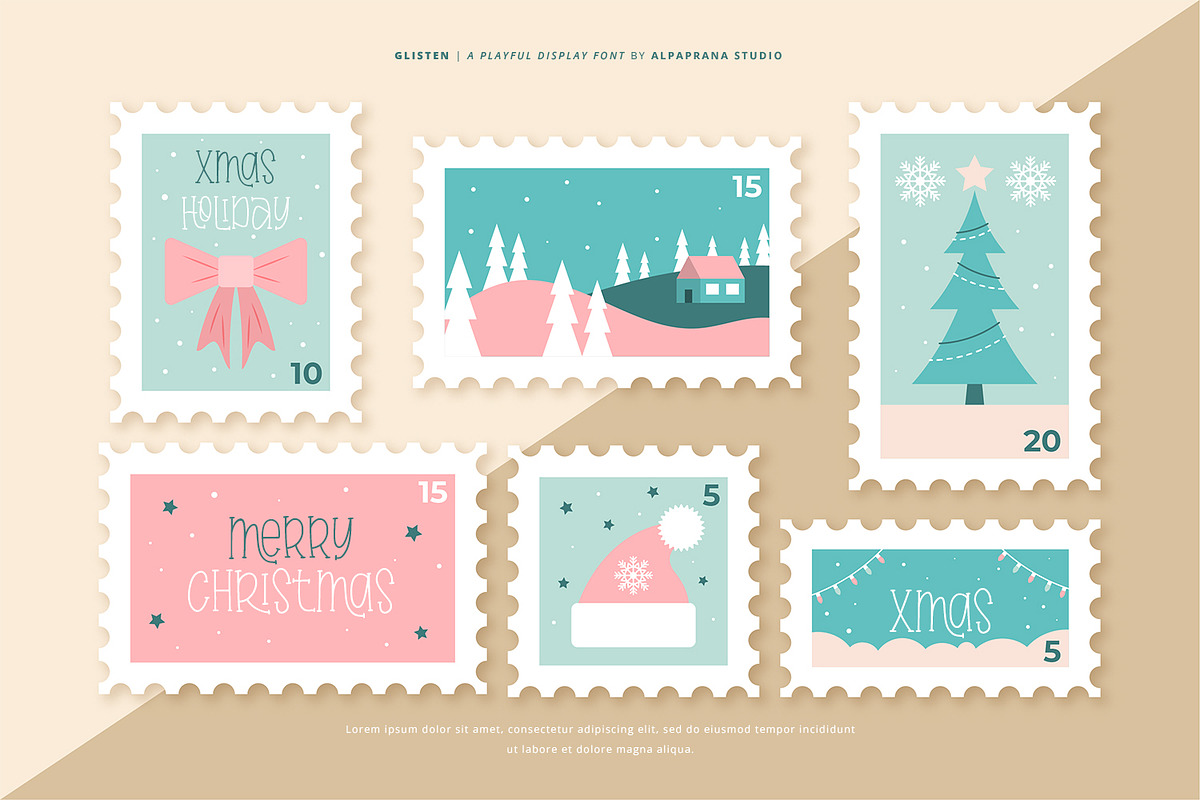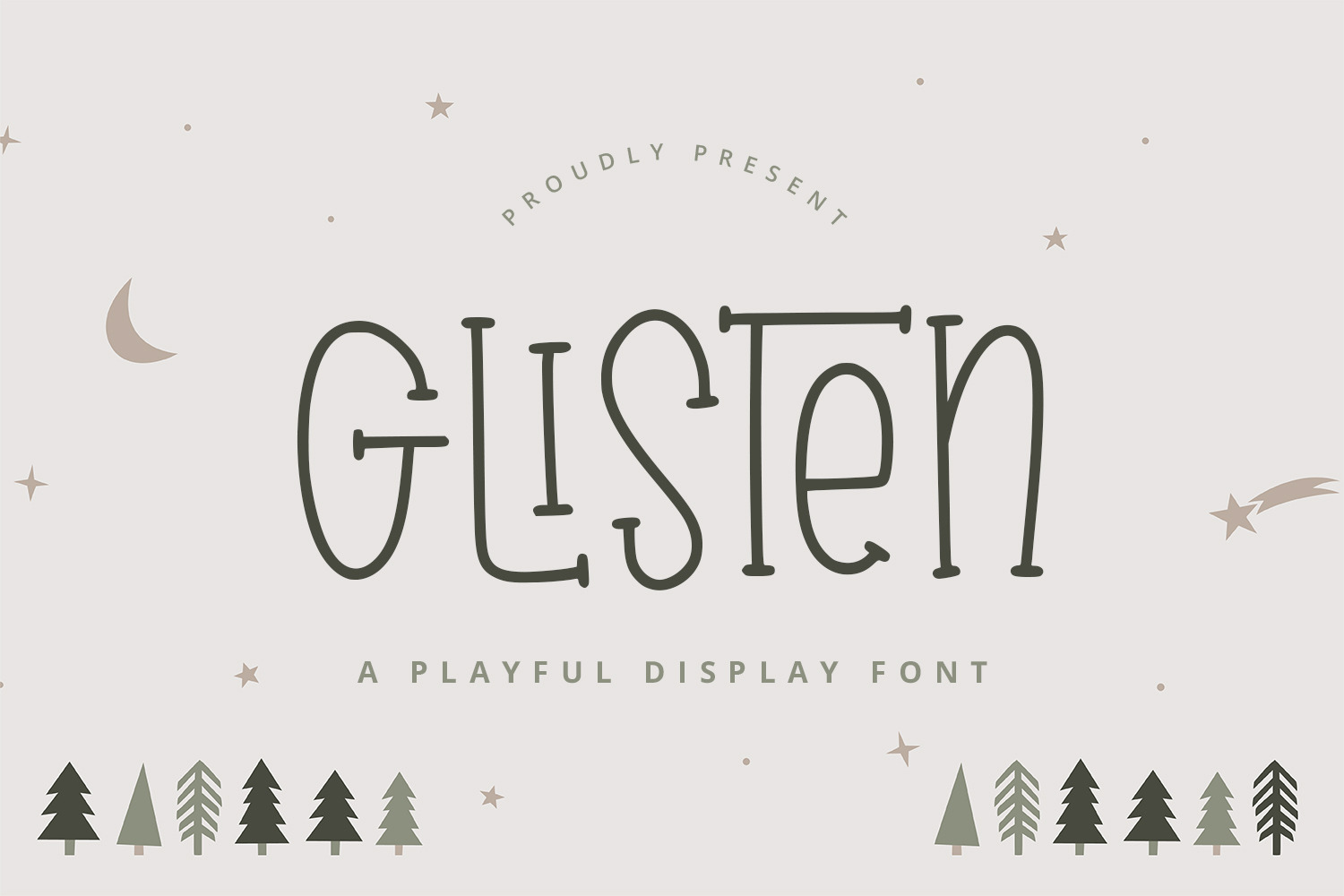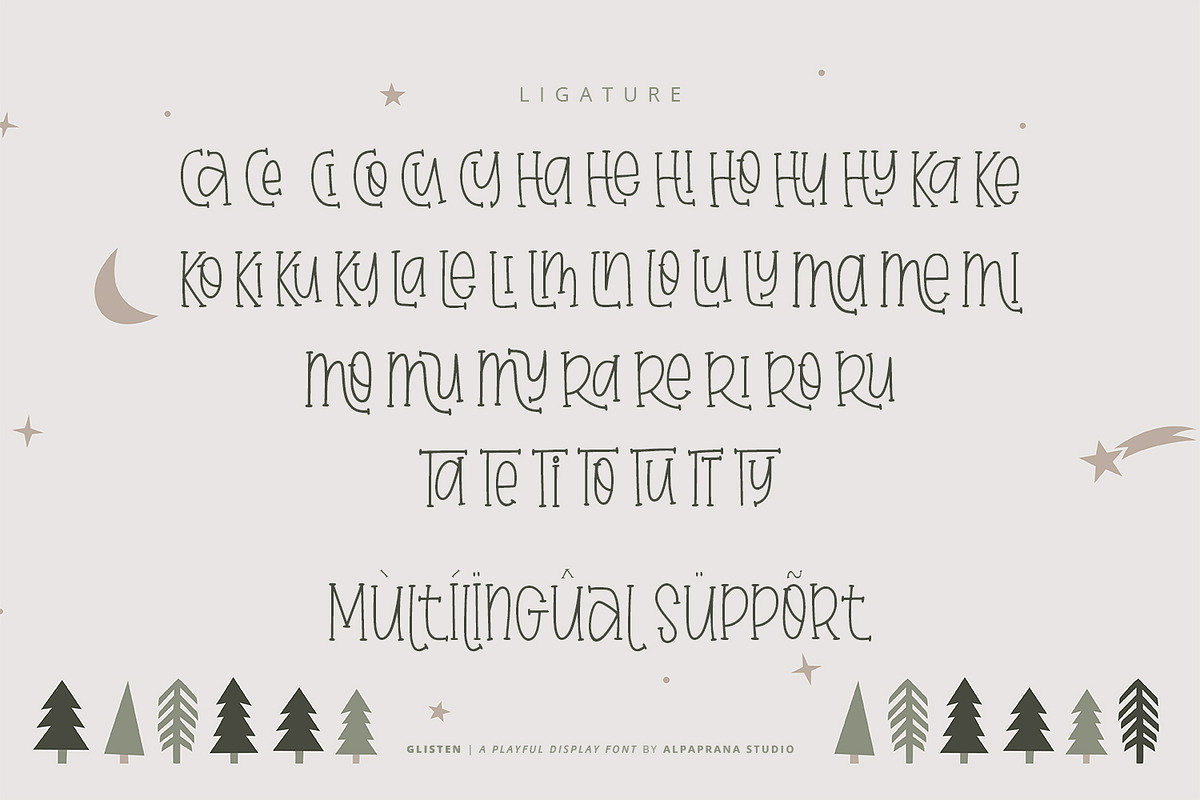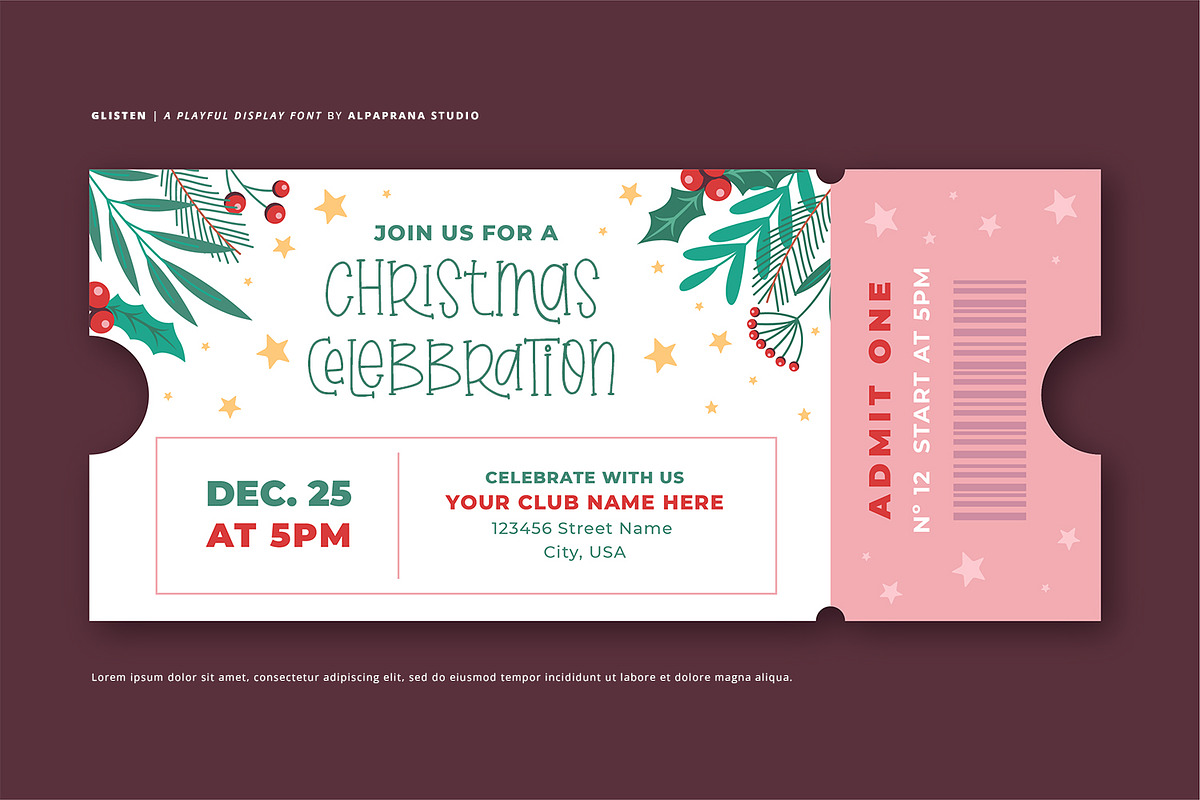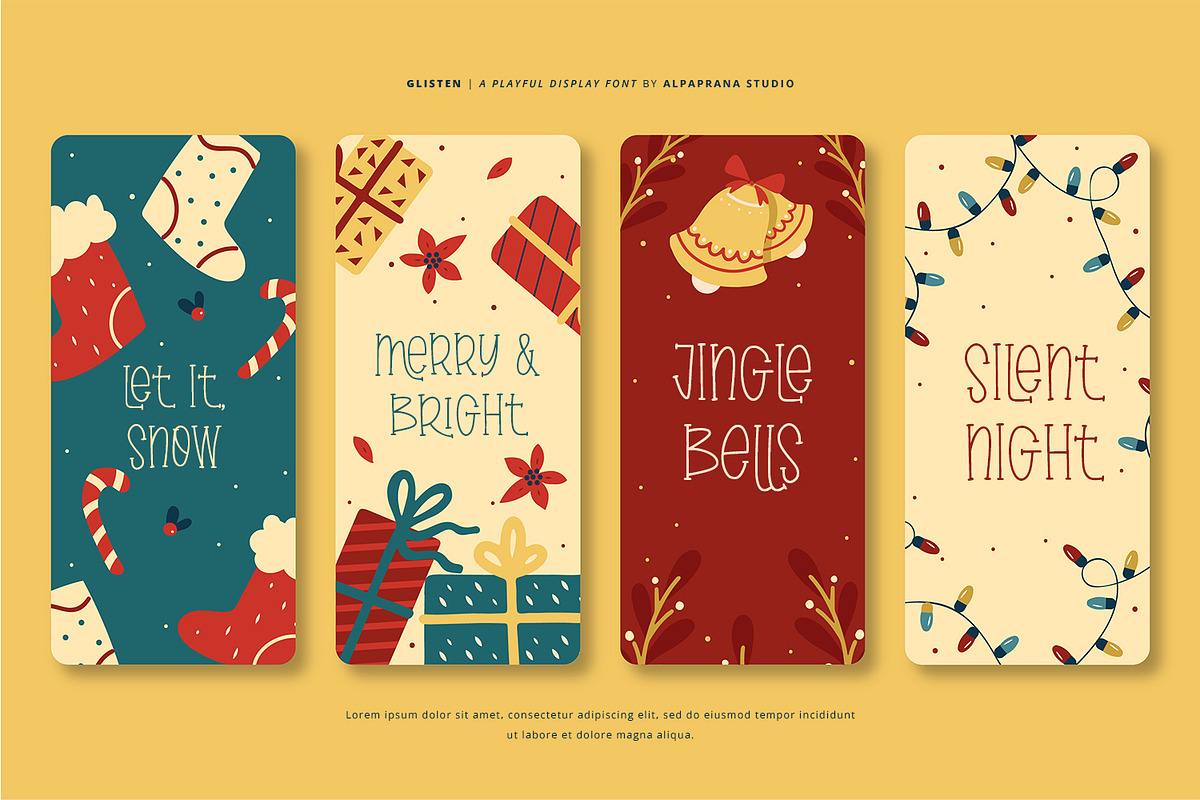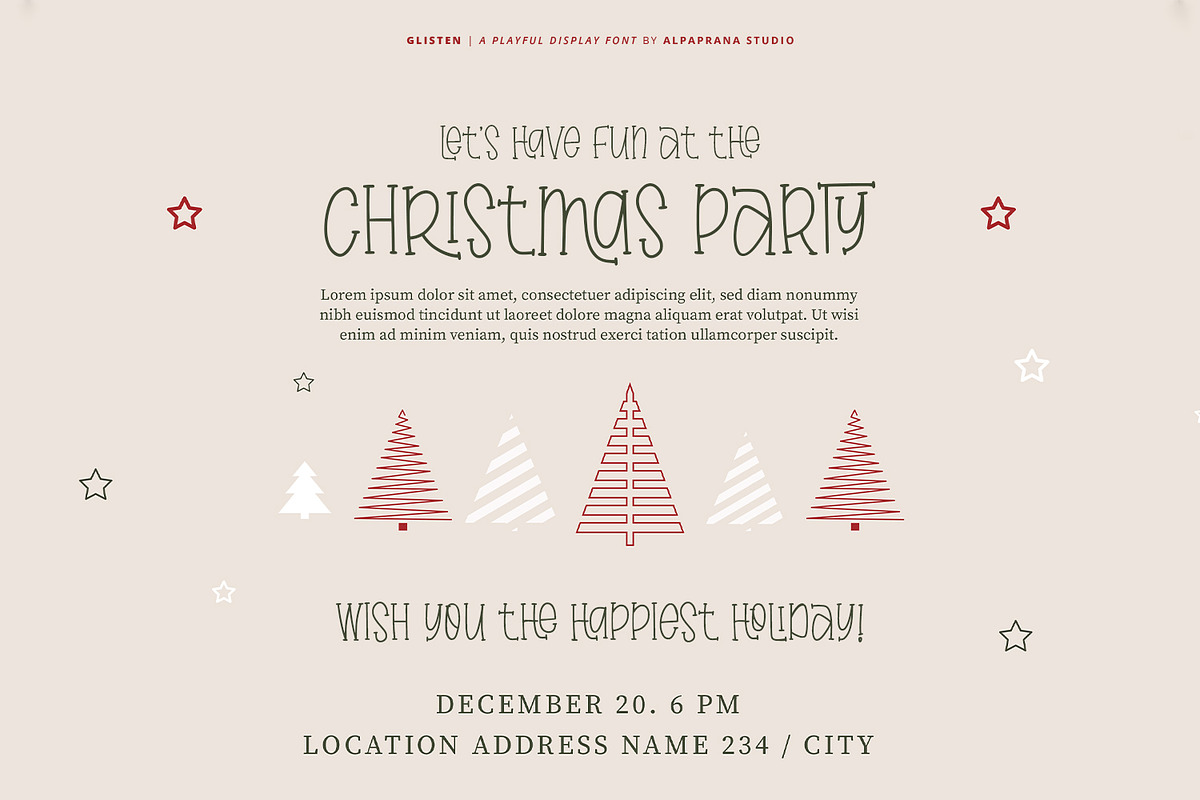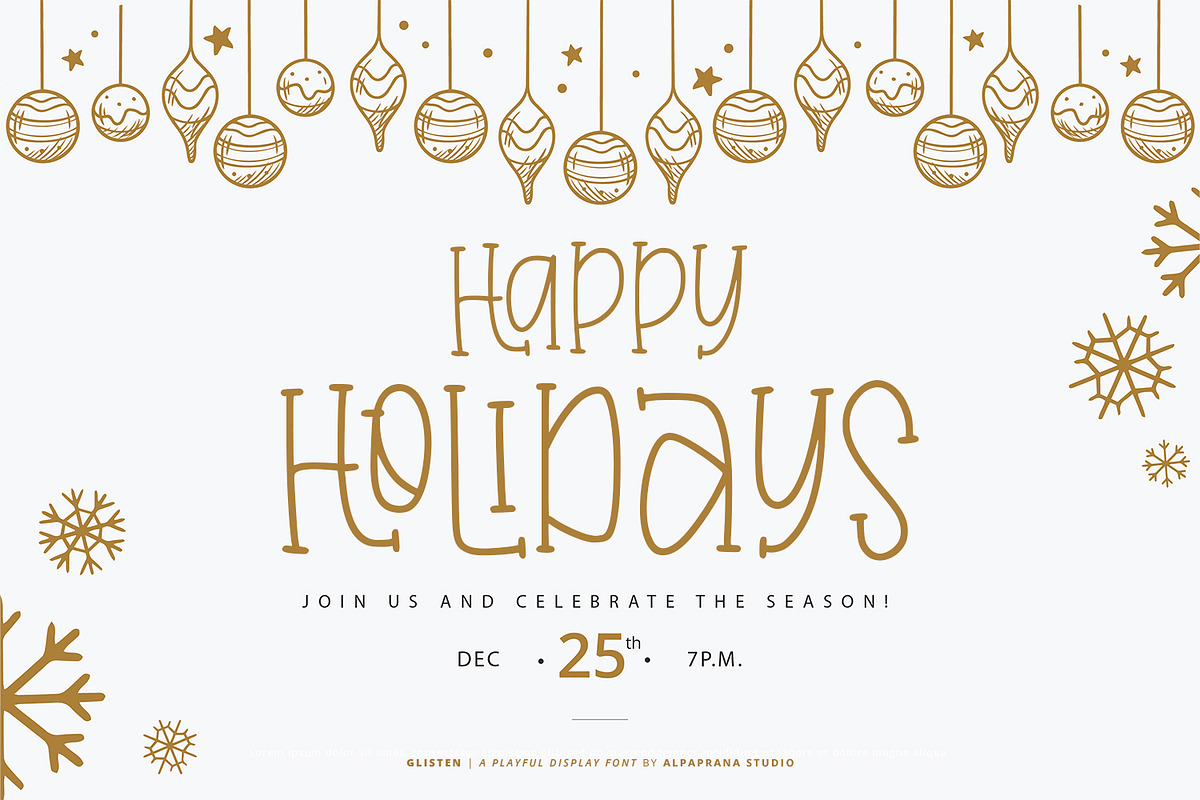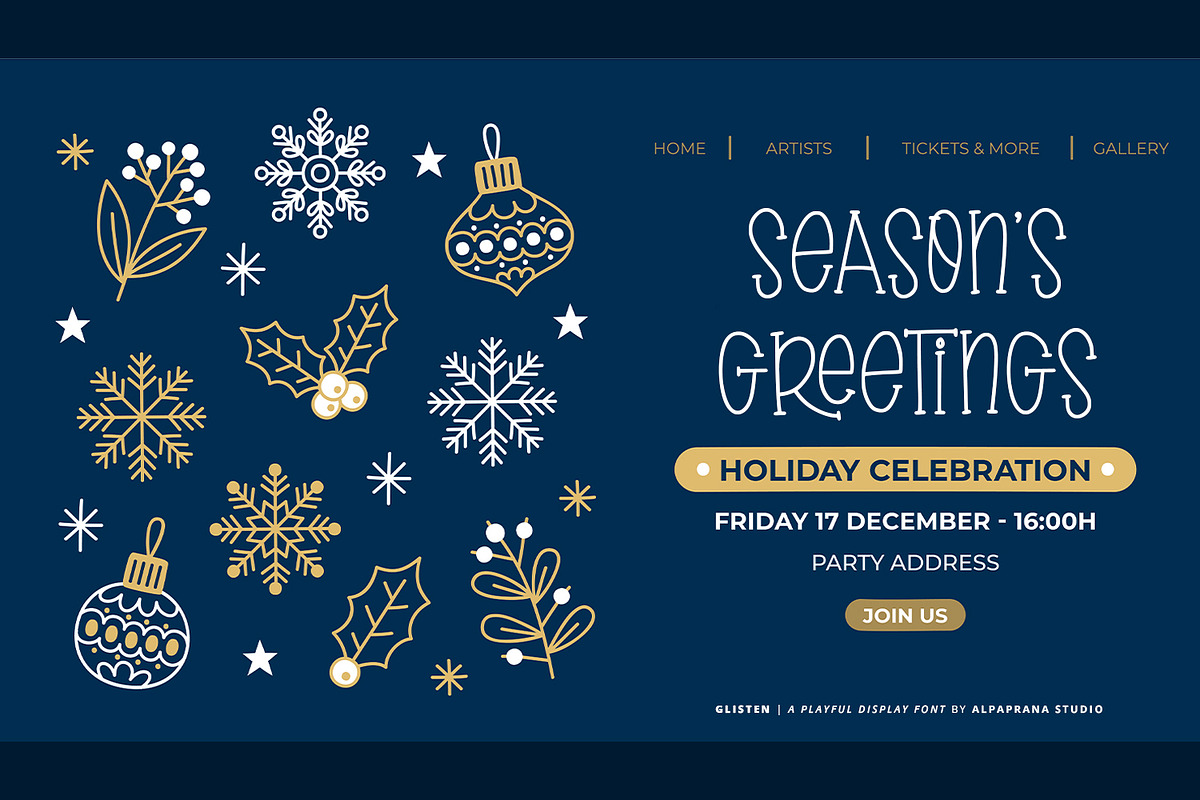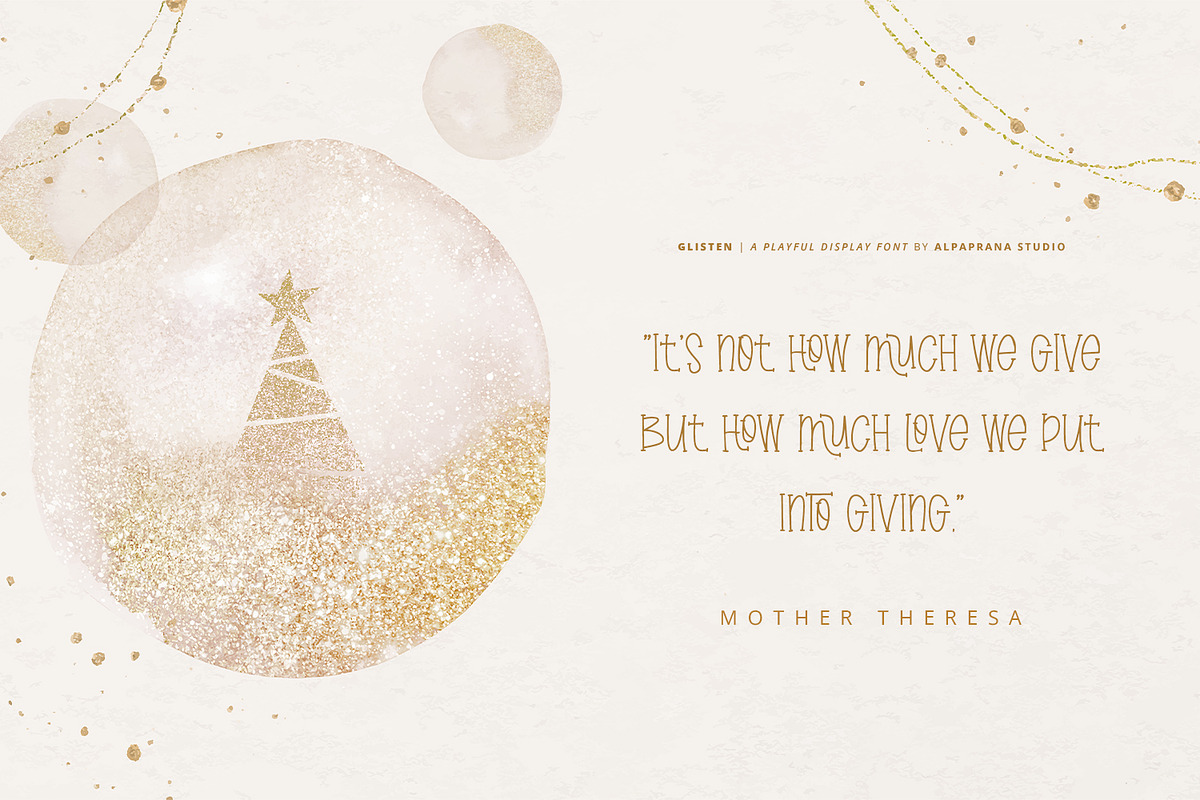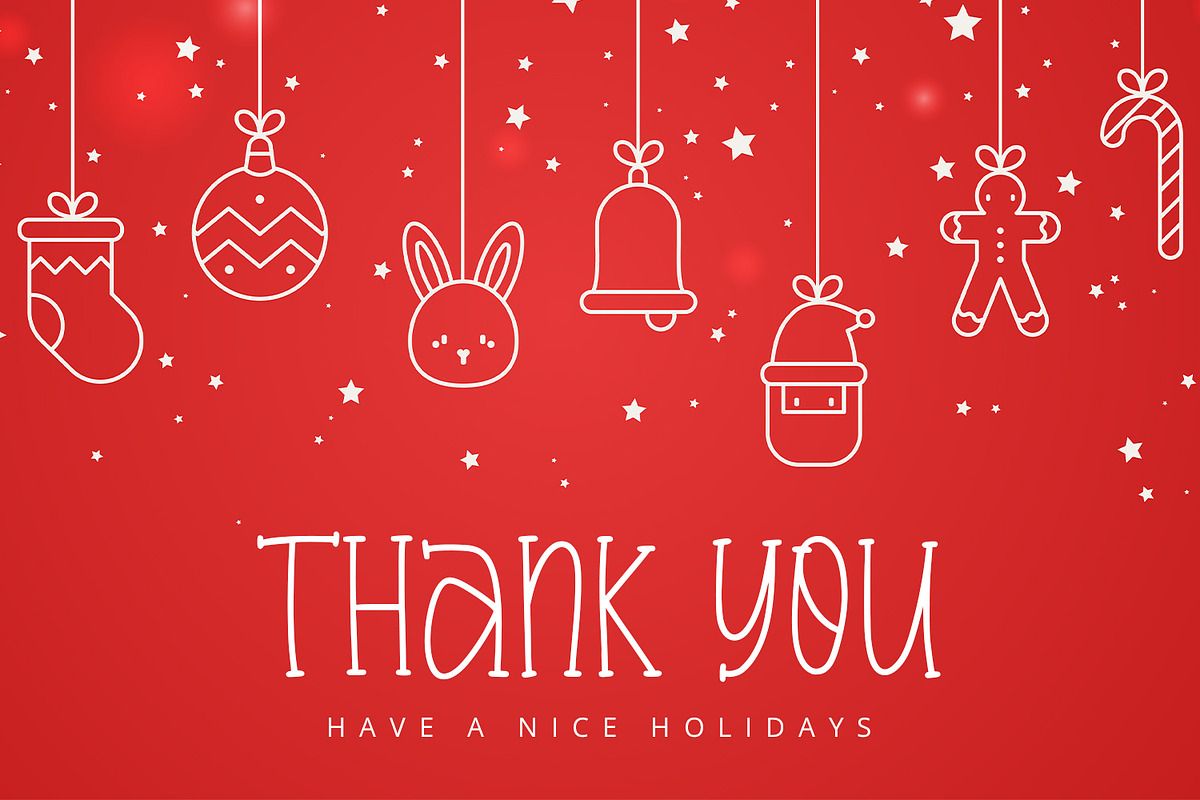
Glisten - Playful Font
Glisten is a playful display font with cute and modern style. It will be perfectly used for Branding, Logo Design, Lettering, Logotype, Clothing, Poster, magazine, packaging, posters, shopping bags, t-shirts, book covers, photography, special events and other design project.